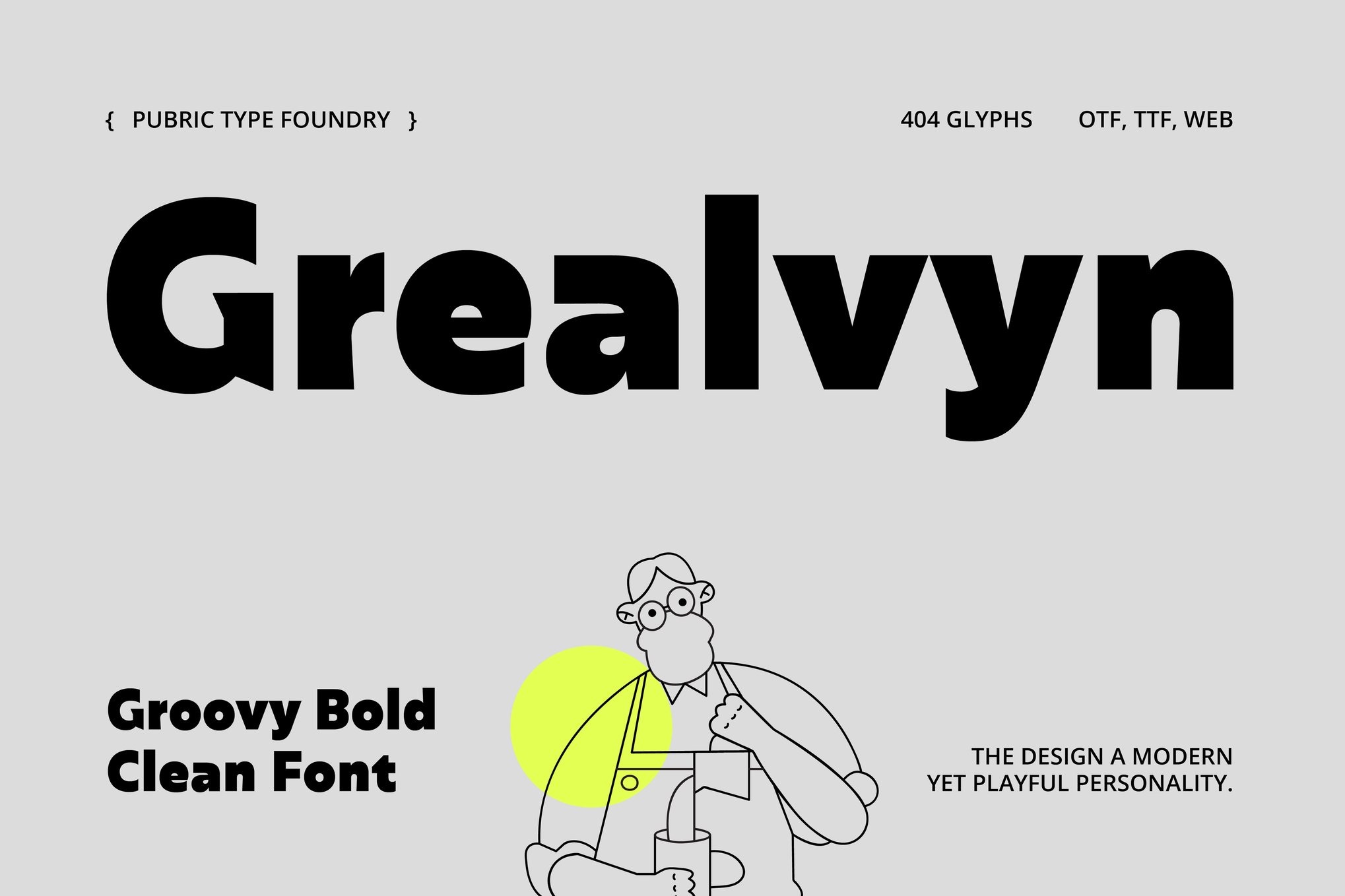
Grealvyn Font
Grealvyn Font is a clean and thoughtfully built typeface that works seamlessly for both professional branding and everyday creative uses. Grealvyn is a groovy, clean, bold display typeface that combines strong letterforms with modern simplicity. Its balanced proportions maintain a polished look while adding a subtle playful touch—perfect for branding, editorials, posters, and standout digital content.